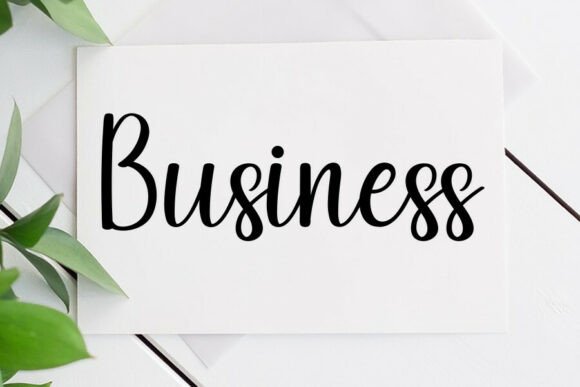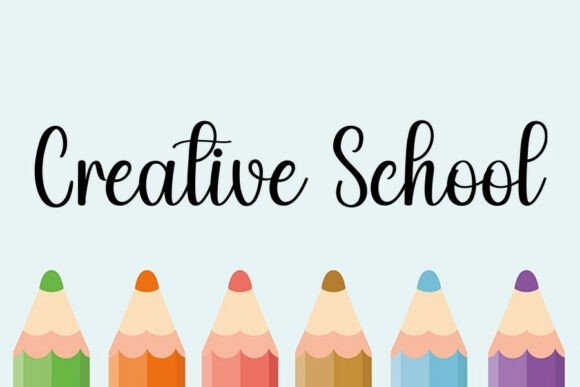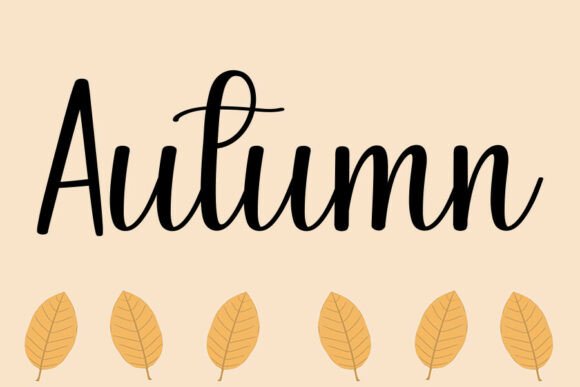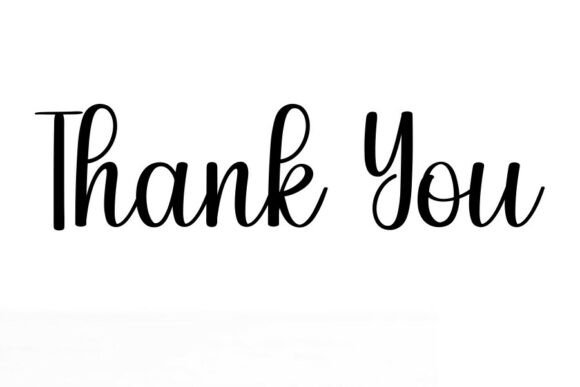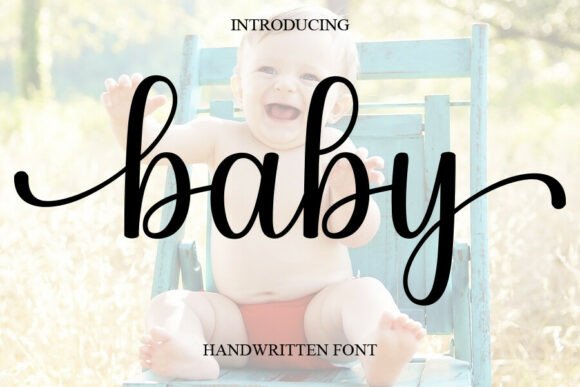
Baby Font: The Perfect Handwritten Font for Your Creative Projects
Are you a designer or crafter looking for a font that can add a personal touch to your projects? Look no further than the Baby Font, a tall, playful handwritten font that exudes a casual, heartfelt feel. With its slim, elongated characters, this font brings a sense of warmth and personality that’s perfect for a wide range of creative projects.
What Makes Baby Font Special?
Baby Font is a unique and charming font that combines a clean handwritten style with a touch of elegance. Its slim, elongated characters give it a distinctive look that’s both modern and timeless. This font is perfect for designers and crafters who want to add a personal touch to their projects, whether it’s a Father’s Day design, a greeting card, a t-shirt, or a poster.
Perfect for Personal and Emotional Projects
Baby Font is ideal for personal and emotional projects that require a heartfelt touch. Its casual, handwritten style makes it perfect for:
- Father’s Day designs: Create a special Father’s Day card or gift with a personal message that’s sure to touch your dad’s heart.
- Greeting cards: Add a personal touch to your greeting cards with Baby Font’s warm and inviting style.
- T-shirts: Design a custom t-shirt with a special message or quote that’s sure to make a statement.
- Posters: Create a beautiful poster with a heartfelt message that’s perfect for a special occasion.
Why Choose Baby Font?
There are many reasons why Baby Font is the perfect choice for your creative projects:
- Unique and charming style: Baby Font has a distinctive look that’s both modern and timeless.
- Perfect for personal projects: This font is ideal for personal and emotional projects that require a heartfelt touch.
- Easy to read: Baby Font’s clean and slim characters make it easy to read, even at small sizes.
- Versatile: This font is perfect for a wide range of creative projects, from greeting cards to posters.
Tips for Using Baby Font
Here are some tips for using Baby Font in your creative projects:
- Pair it with other fonts: Baby Font looks great when paired with other fonts, such as sans-serif fonts or script fonts.
- Use it for headings and titles: Baby Font’s slim characters make it perfect for headings and titles.
- Add a personal touch: Use Baby Font to add a personal touch to your projects, such as a special message or quote.
Baby Font is a unique and charming handwritten font that’s perfect for designers and crafters who want to add a personal touch to their projects. With its slim, elongated characters and casual, heartfelt feel, this font is ideal for a wide range of creative projects, from Father’s Day designs to greeting cards, t-shirts, and posters. So why not give Baby Font a try and see how it can elevate your creative projects?
Whether you’re a professional designer or a crafter, Baby Font is a great addition to your font collection. Its versatility and charm make it perfect for any project that requires a personal touch. So go ahead, get creative, and make your projects stand out with Baby Font!